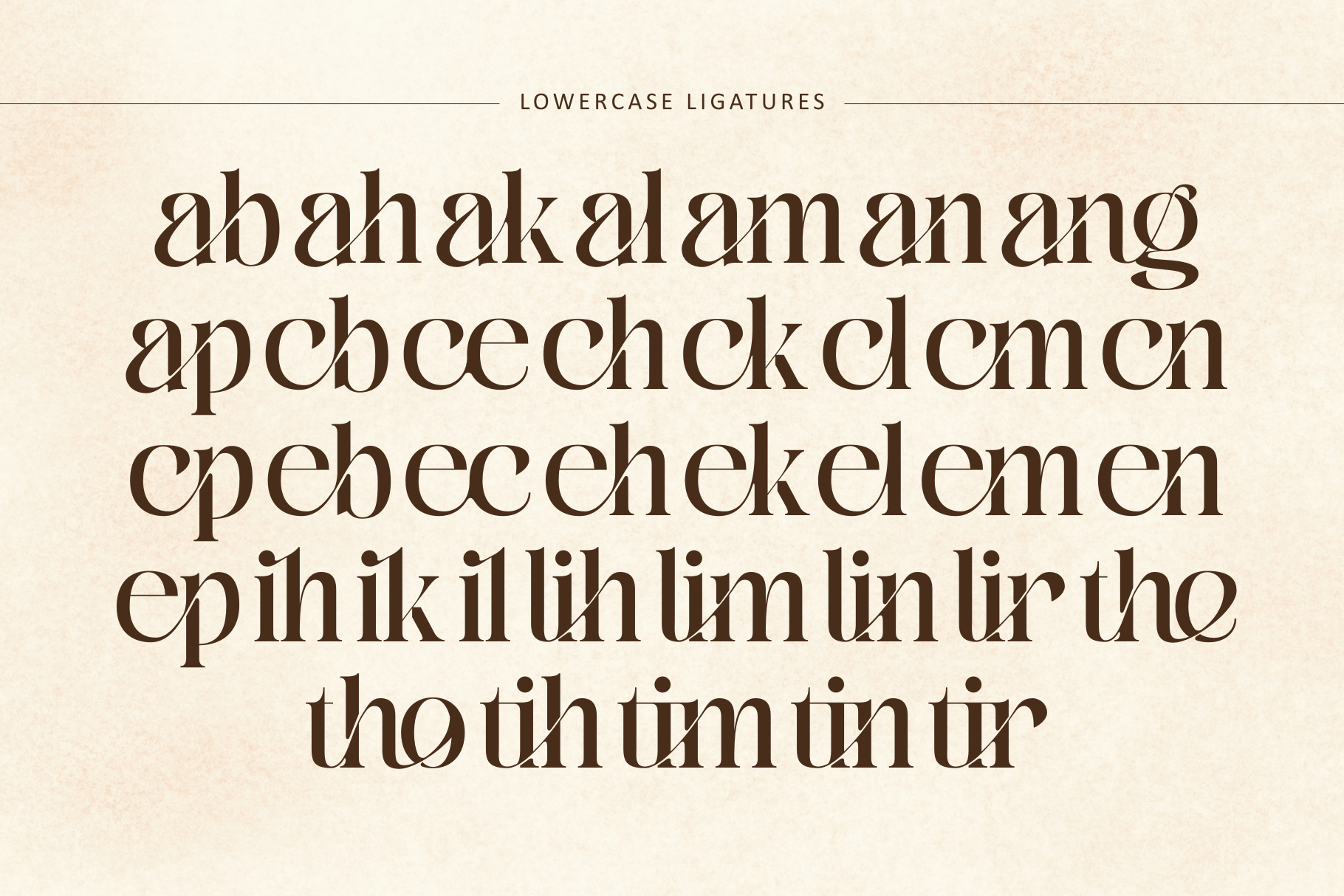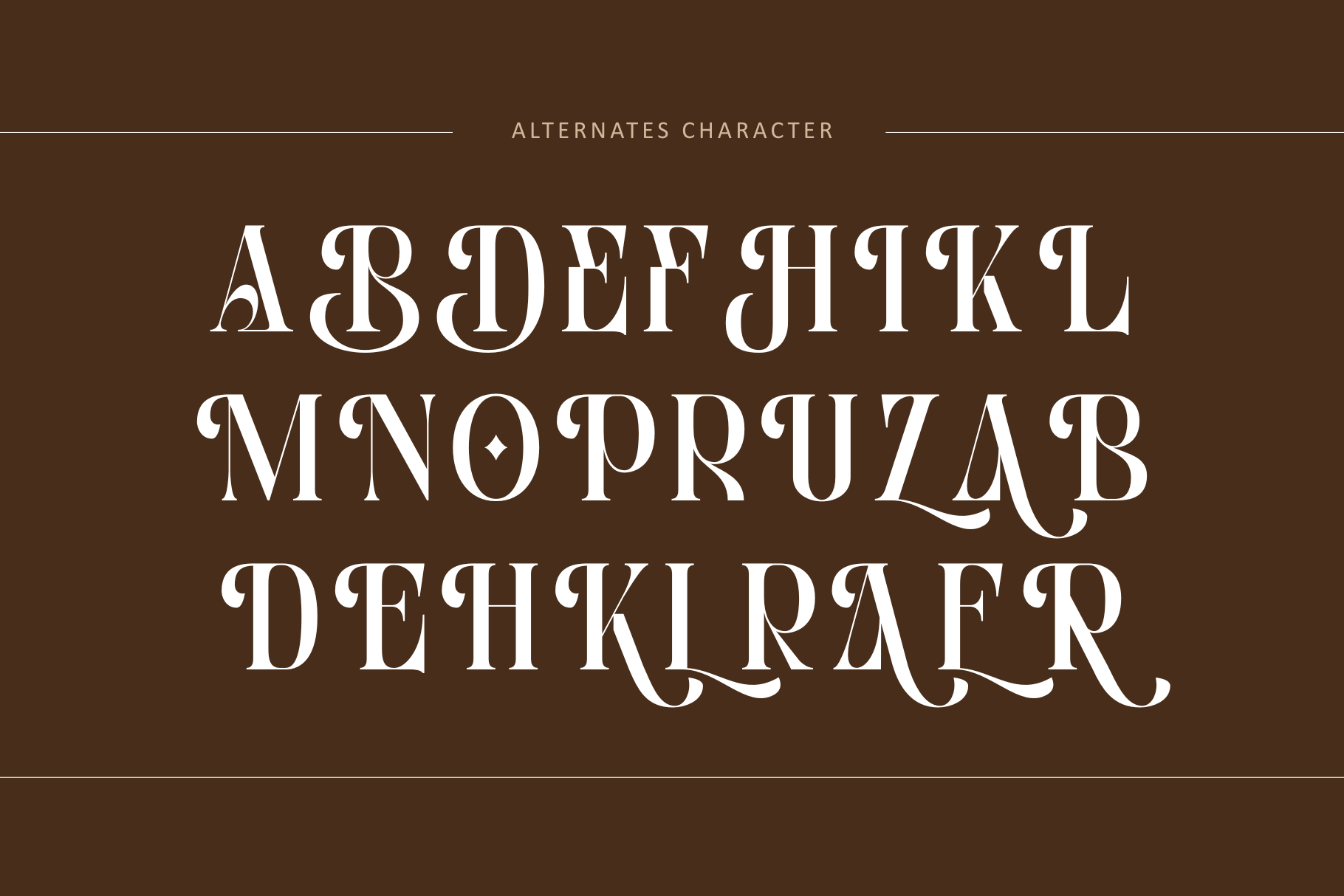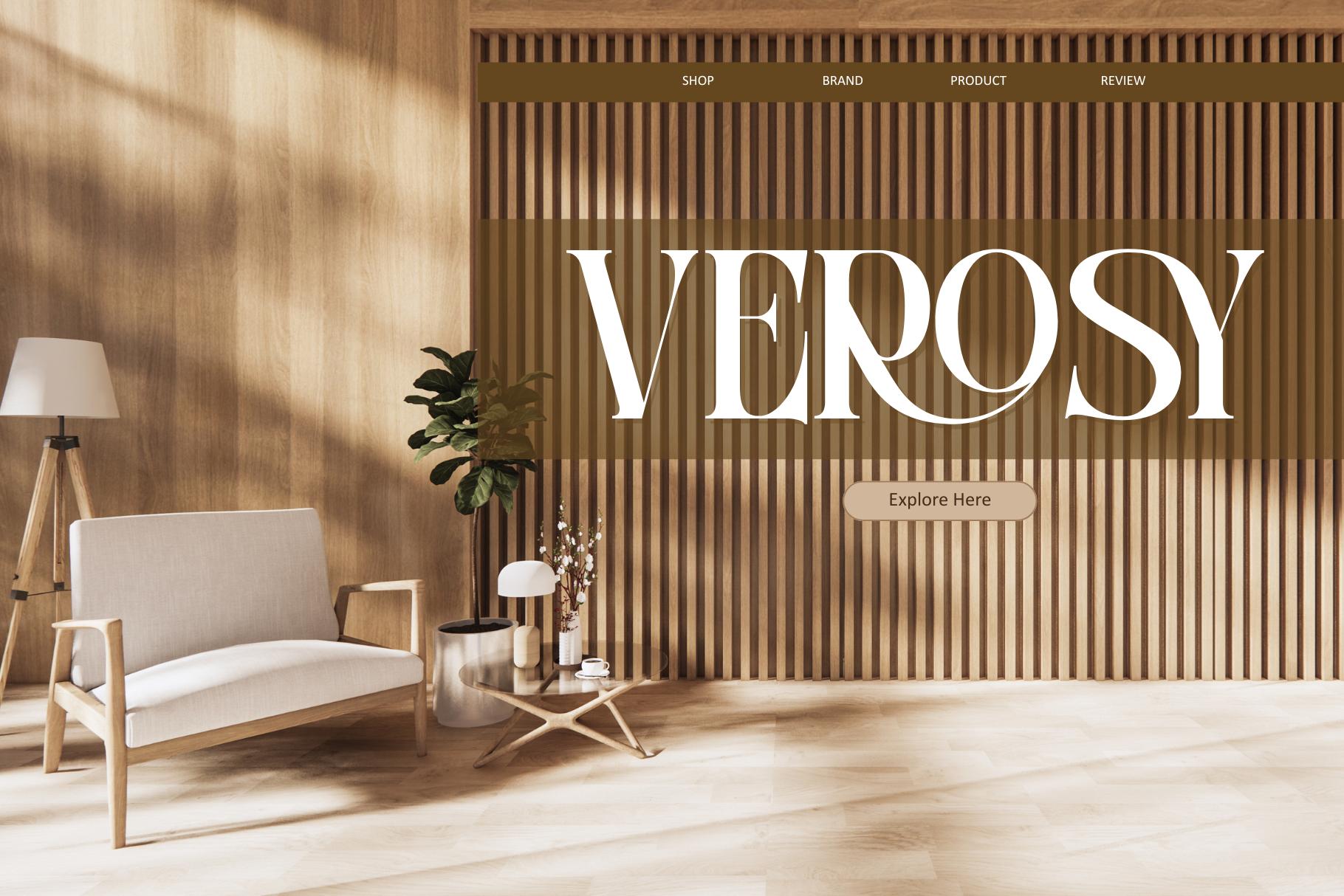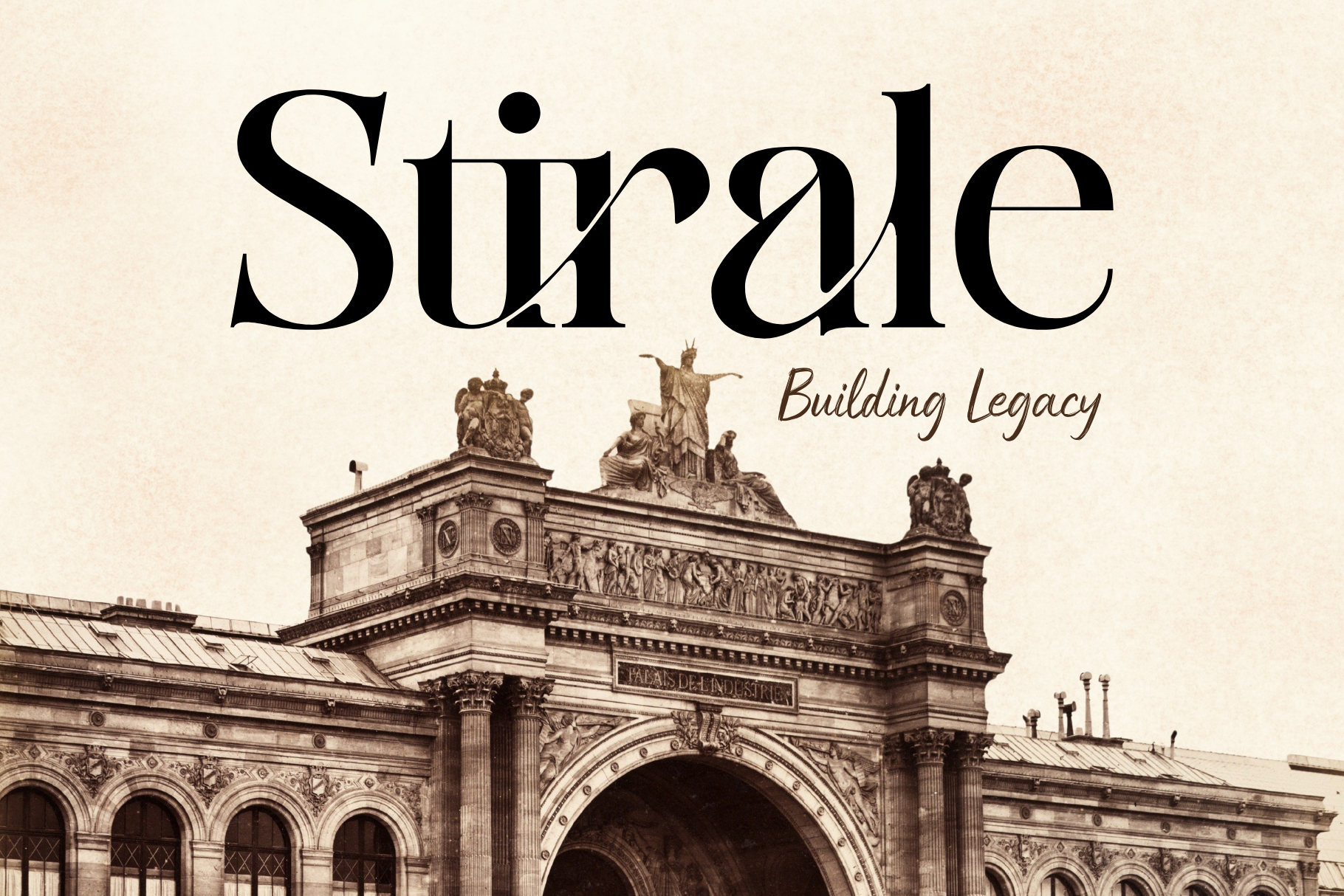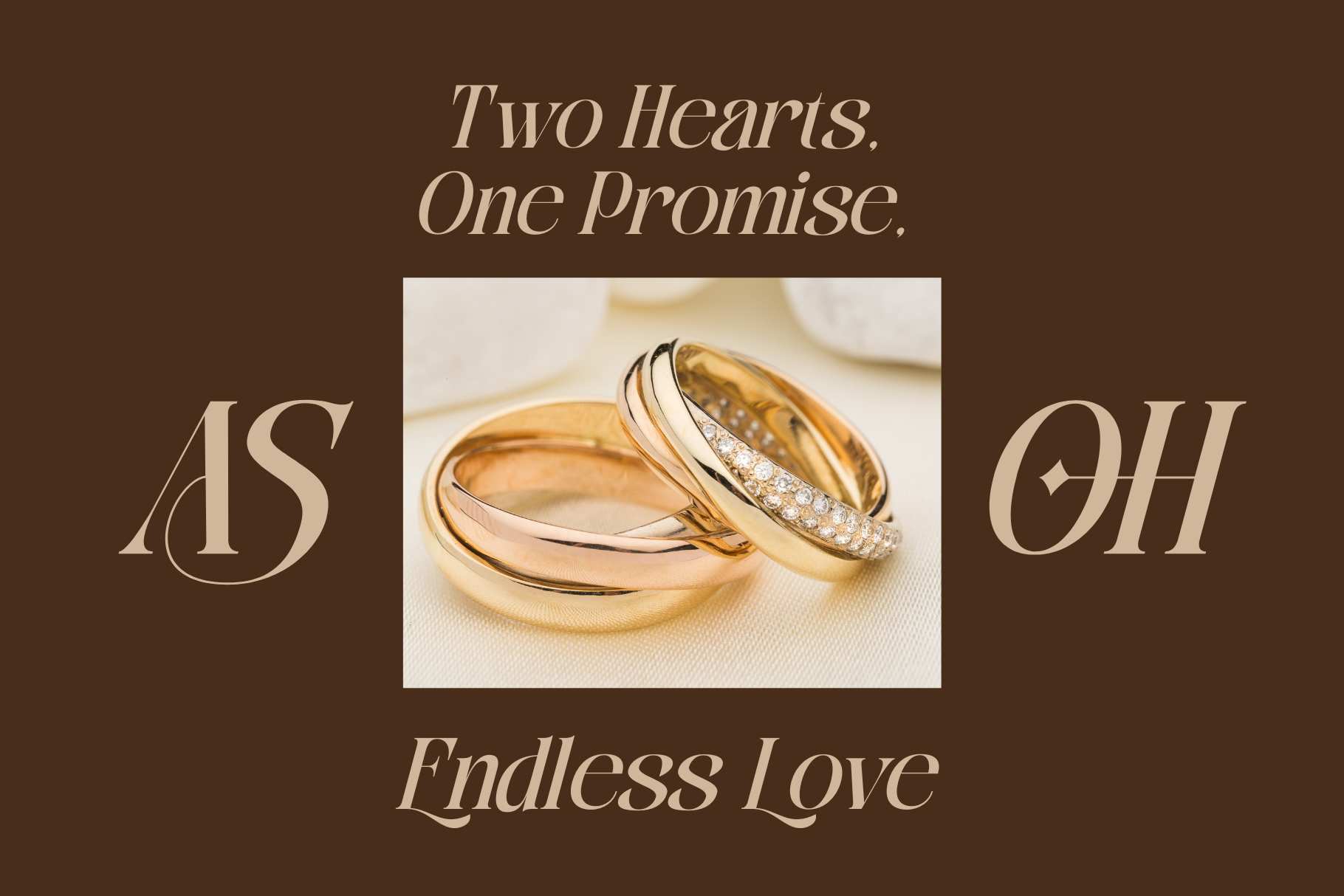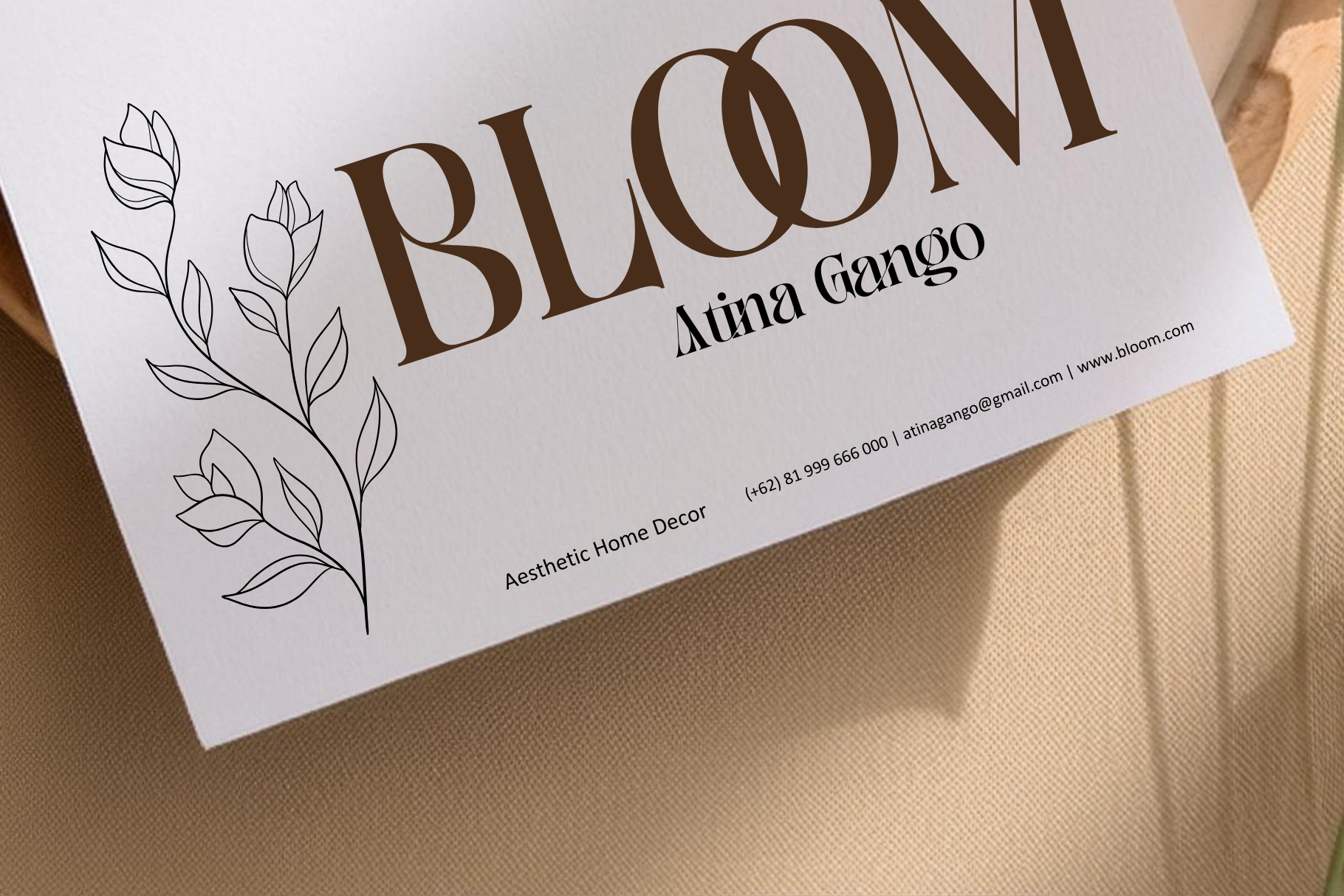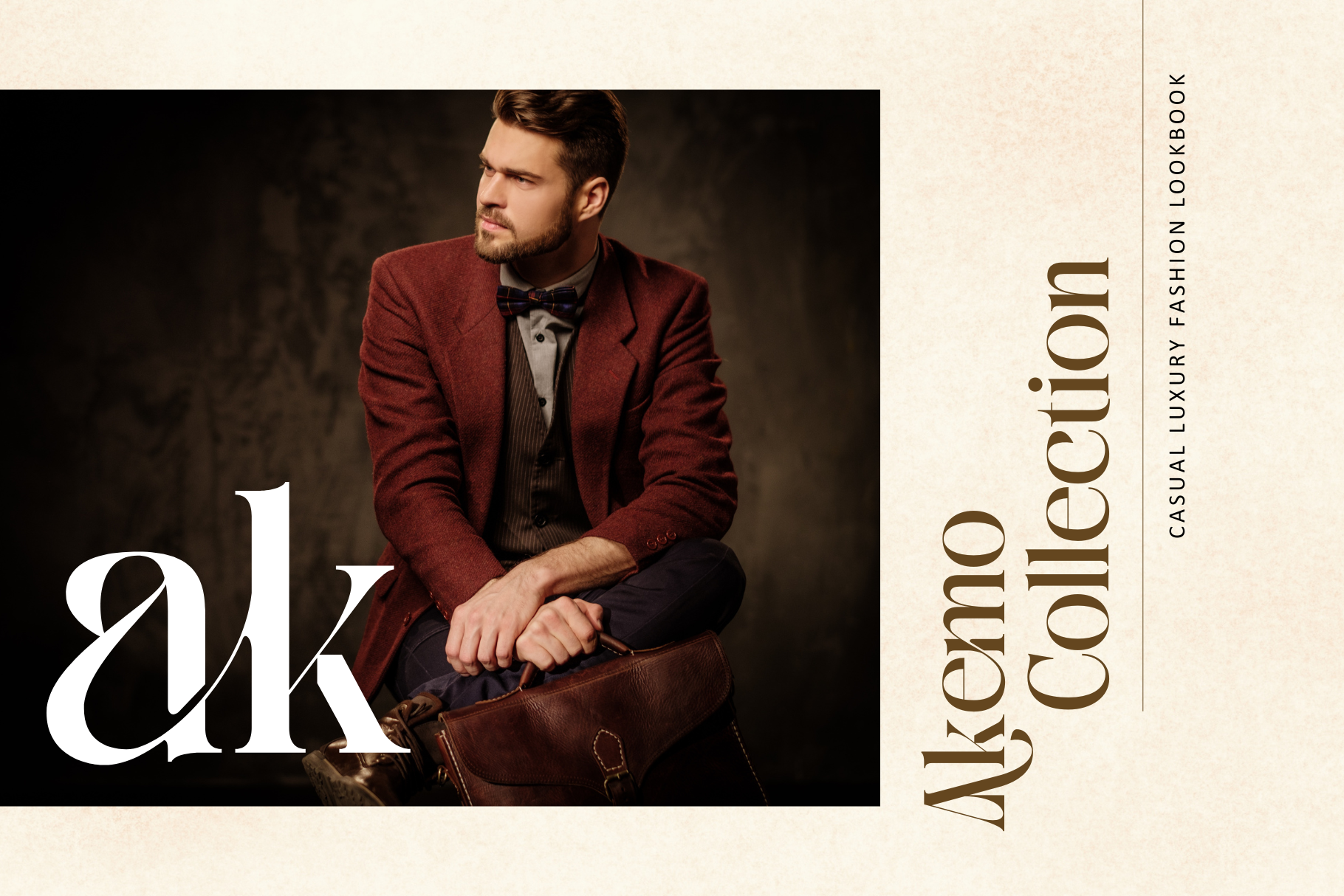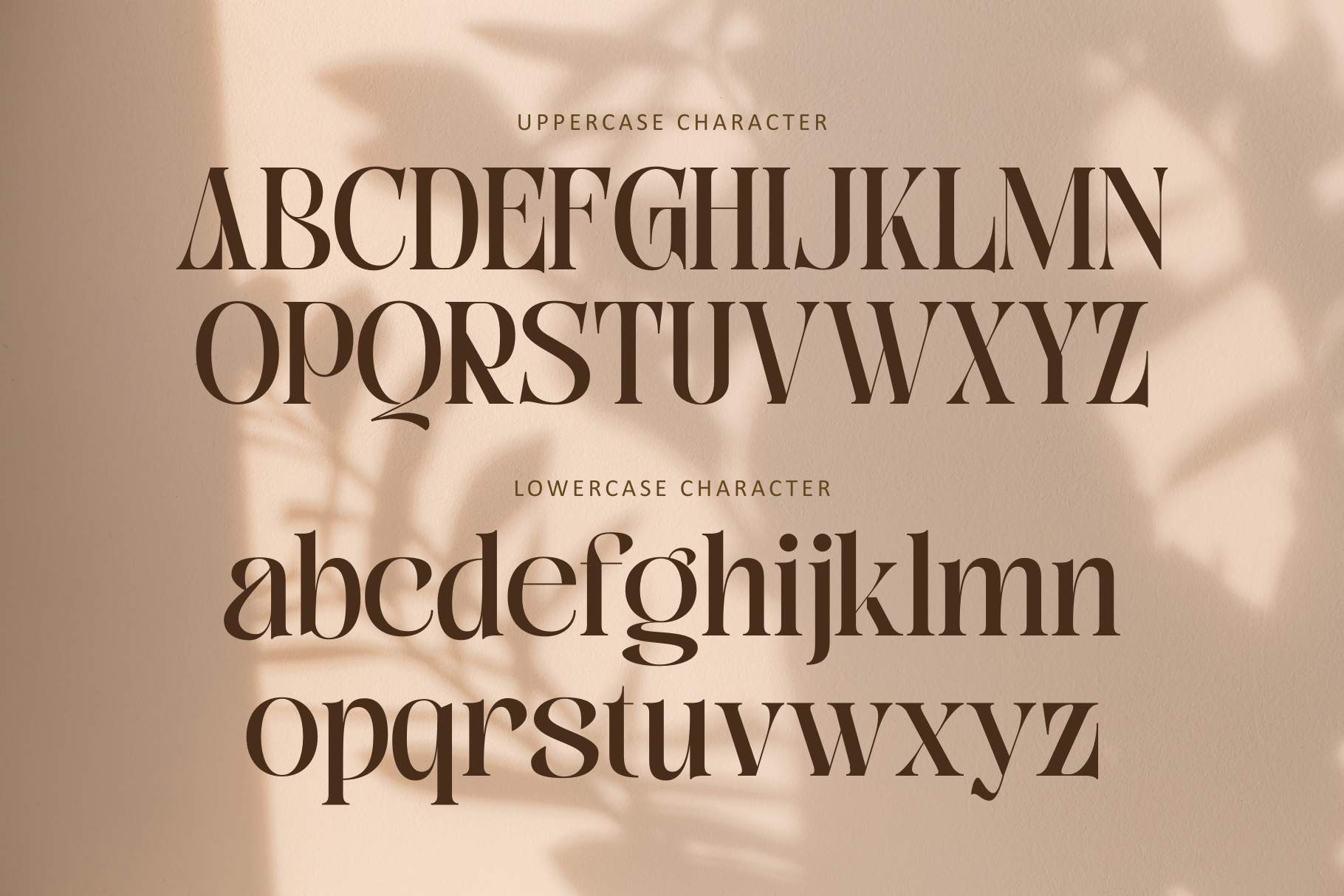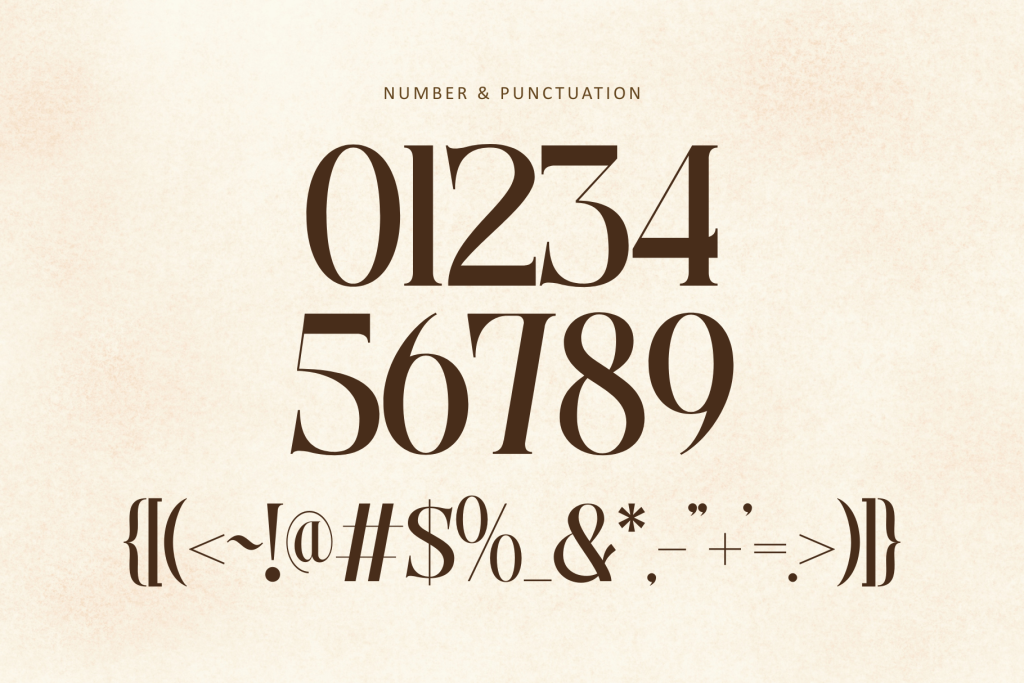
Bitho Luxury offers beautiful typographic harmony for a diversity of design projects, including logos & branding, social media posts, advertisements & product designs.